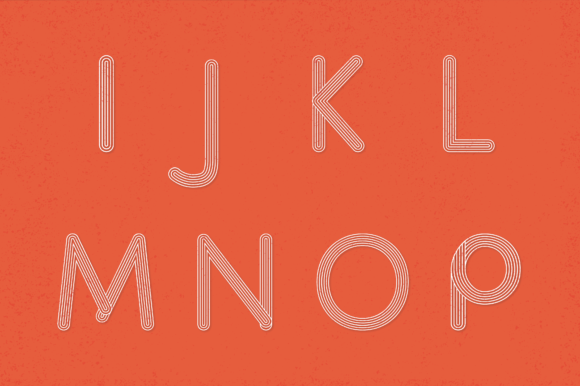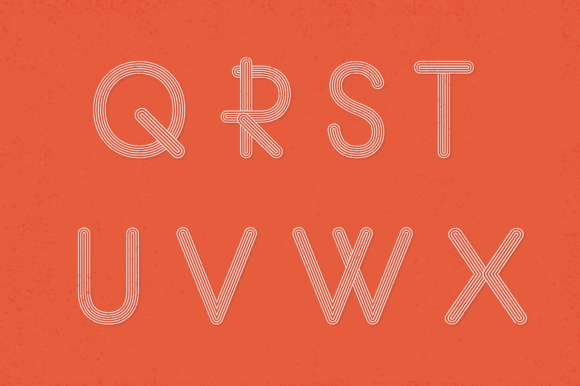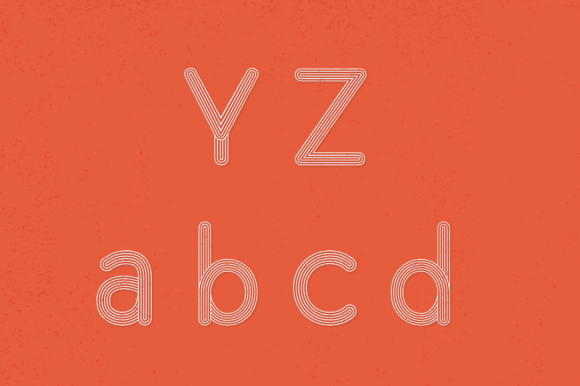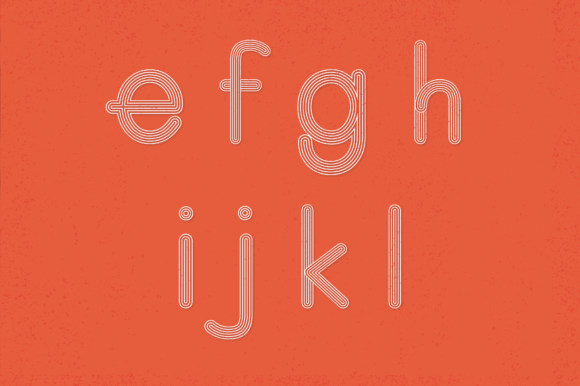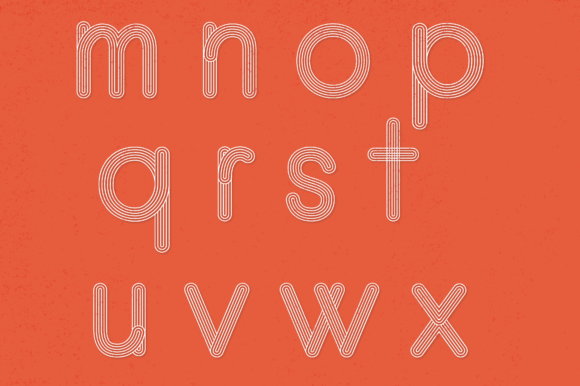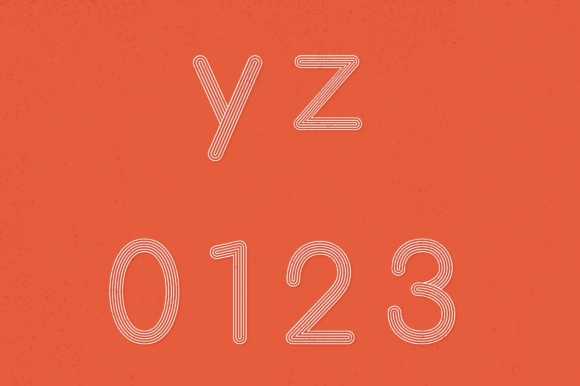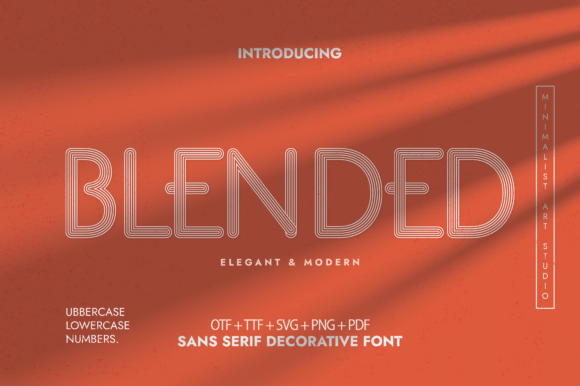
Introducing Blended Font: Elevate Your Designs with Elegance and Sophistication
In the world of design, typography plays a crucial role in conveying the message and aesthetic of a project. Among the numerous fonts available, Blended Font stands out as a unique and stylish decorative font that can instantly elevate your creations. Designed with elegance and sophistication in mind, Blended Font is perfect for designers and crafters looking to add a touch of luxury to their work.
What Makes Blended Font Special?
Blended Font is an expertly crafted decorative font that boasts an elegant and cool appearance. Its distinctive style is designed to make your creations look out of this world, setting it apart from more traditional fonts. Whether you’re working on a web design, business card, or any other project that requires a unique touch, Blended Font is an excellent choice.
Key Features of Blended Font
- Elegant and Cool Appearance: Blended Font features a sophisticated design that adds a touch of elegance to any project.
- Versatile: This font is ideal for a wide range of applications, including web designs, business cards, and more.
- Unique Touch: With Blended Font, you can add a distinctive flair to your creations, setting them apart from the rest.
Uses of Blended Font
Blended Font’s versatility makes it suitable for various design projects. Here are some of the ways you can use this beautiful font:
- Web Designs: Add a touch of sophistication to your website with Blended Font. It’s perfect for headings, titles, and other design elements.
- Business Cards: Make a lasting impression with a business card that features Blended Font. Its elegant appearance is sure to impress potential clients and partners.
- Social Media Graphics: Elevate your social media presence with eye-catching graphics that showcase Blended Font.
- Logos and Branding: Use Blended Font to create a unique and memorable logo that reflects your brand’s personality.
Why Choose Blended Font?
With so many fonts available, why choose Blended Font? Here are a few reasons why designers and crafters prefer this elegant decorative font:
- High-Quality Design: Blended Font is designed with attention to detail, ensuring that it looks great in any project.
- Unique Style: Blended Font’s distinctive appearance sets it apart from other fonts, allowing you to create truly unique designs.
Tips for Using Blended Font Effectively
To get the most out of Blended Font, here are some tips to keep in mind:
- Use it Sparingly: While Blended Font is elegant and sophisticated, it’s best to use it sparingly to avoid overwhelming your design.
- Pair it with Other Fonts: Experiment with pairing Blended Font with other fonts to create a unique and visually appealing design.
- Adjust Font Size and Color: Play with font size and color to create a design that’s both elegant and eye-catching.
Blended Font is an elegant and cool looking decorative font that’s perfect for designers and crafters looking to add a touch of sophistication to their work. With its versatile design, ease of use, and unique style, Blended Font is an excellent choice for a wide range of projects. Whether you’re working on a web design, business card, or social media graphic, this font is sure to elevate your creations and make them stand out.